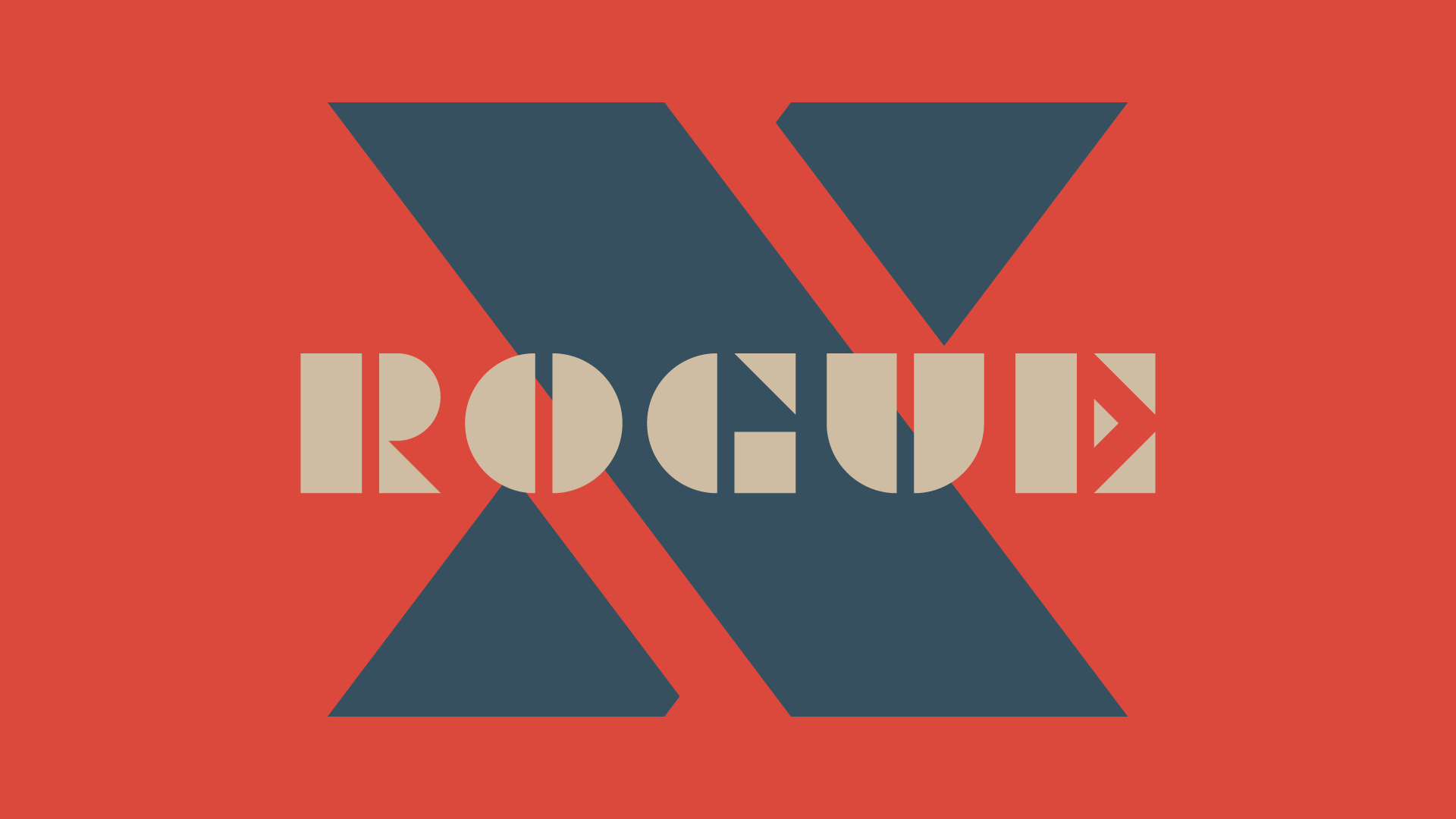
ROGUE TYPEFACE
Rogue elevates your visuals with a modern stencil that balances contemporary precision with vintage sophistication. Clean cuts and refined shapes make it equally striking as a logo or editorial headline that demand a timeless aesthetic.
Uppercase with NUMERALS